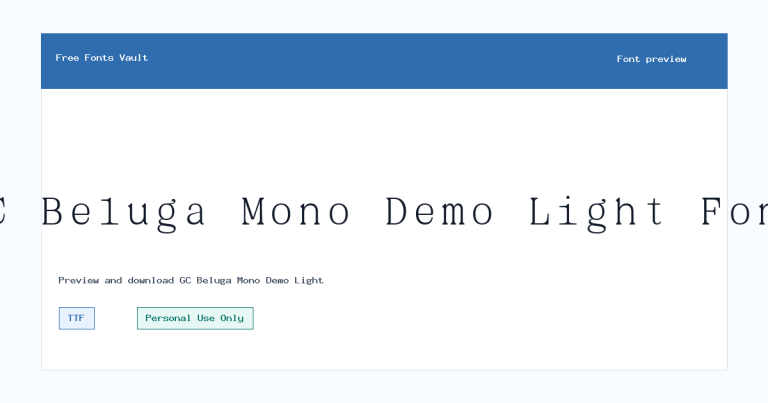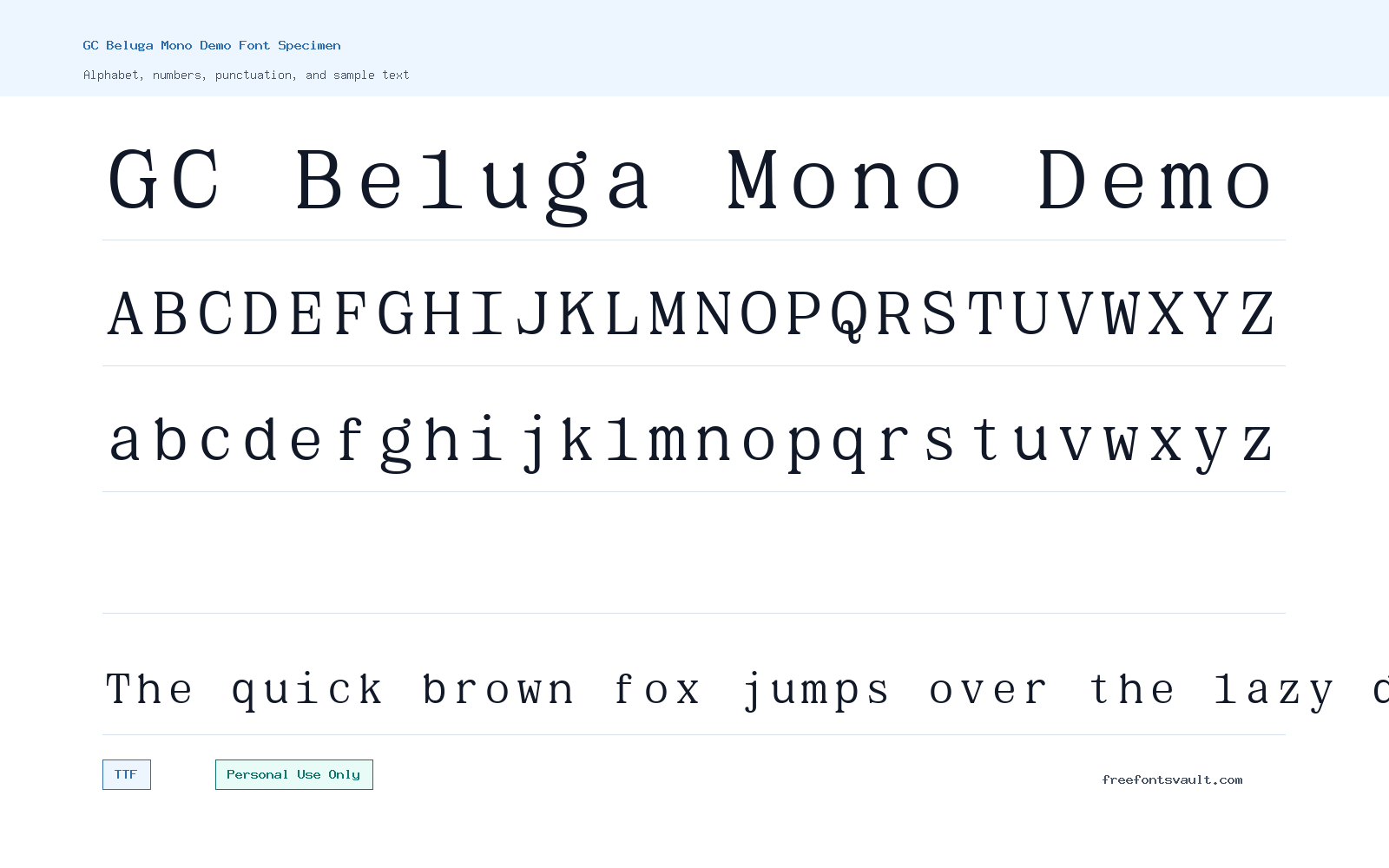
GC Beluga Mono Demo
- Designer Dwi Indah Fadhilatul Amanah by Glyphonic
GC Beluga Mono Demo is a personal-use font family from Glyphonic with regular and bold TTF files, made for designers who want to test a structured mono-style look in headings, branding drafts, posters, and layout mockups.
About GC Beluga Mono Demo
GC Beluga Mono Demo has a clean, steady feel that suits short display text better than long reading passages. The mono-style name suggests a more even, typewriter-like rhythm, while the demo format makes it most useful for trying the look before deciding whether it fits a project. Use the preview tool to check how the letters behave in real words, especially if you plan to use it for brand names, menu items, packaging text, coding-themed graphics, or social media visuals. Fonts with a monospaced or mono-inspired structure can bring order and consistency to a design, but they can also feel rigid if used in large blocks of body copy.
The family has two practical weights: regular and bold. Regular is the better starting point for clean titles, captions, labels, and interface-style mockups. Bold gives stronger impact for posters, logo sketches, thumbnails, and hero text where the font needs to stand out quickly. Try both weights with uppercase, lowercase, numbers, and punctuation before downloading, because display fonts can change mood a lot depending on word length and spacing. If you are testing it for logo work, compare tight and loose letter spacing. A little tracking can make a mono-style design feel more polished, while too much space may make short words look disconnected.
For web mockups, GC Beluga Mono Demo can work well in small controlled areas such as navigation labels, badge text, section headings, pricing cards, or product mockups. It is not a safe choice for paragraph-heavy pages unless your own testing confirms comfortable readability. When using it in posters or social images, keep the message short and give the letters enough contrast against the background. A simple color palette, clear spacing, and one supporting font will usually work better than a busy layout.
Pairing this font is mostly about balance. If GC Beluga Mono Demo is used for a headline, pair it with a calm sans serif for body text so the page stays readable. If you use the bold weight for a logo draft, try a neutral sans serif or a restrained serif for secondary details. Avoid pairing it with another font that has a strong technical or novelty feel unless you want a very stylized result. The cleaner the supporting typeface, the easier it is for GC Beluga Mono Demo to become the main visual voice.
- Useful for short display settings where a steady mono-style rhythm can add structure.
- Regular and bold weights make it easier to test hierarchy in headings, mockups, and poster layouts.
- Logo drafts and brand-name experiments where the text is short and spacing can be adjusted carefully.
- Posters, thumbnails, and social graphics that need a clean, structured display style.
- Web mockups, navigation labels, badges, headers, and interface-inspired design concepts.
- Packaging concepts, title cards, and editorial layouts that need a controlled mono-style accent.
Is GC Beluga Mono Demo good for logos?
What should I pair with GC Beluga Mono Demo?
Pair it with a simple sans serif for body text or supporting details. A neutral companion font helps keep the layout readable while GC Beluga Mono Demo handles the display role.